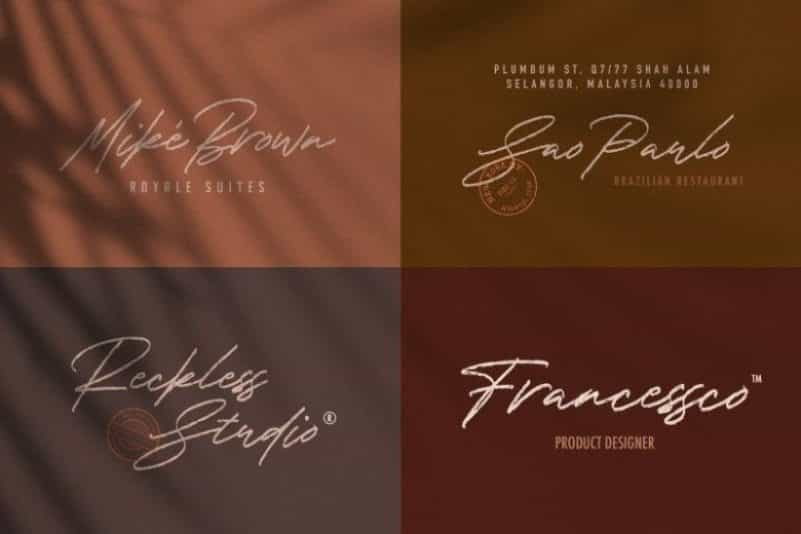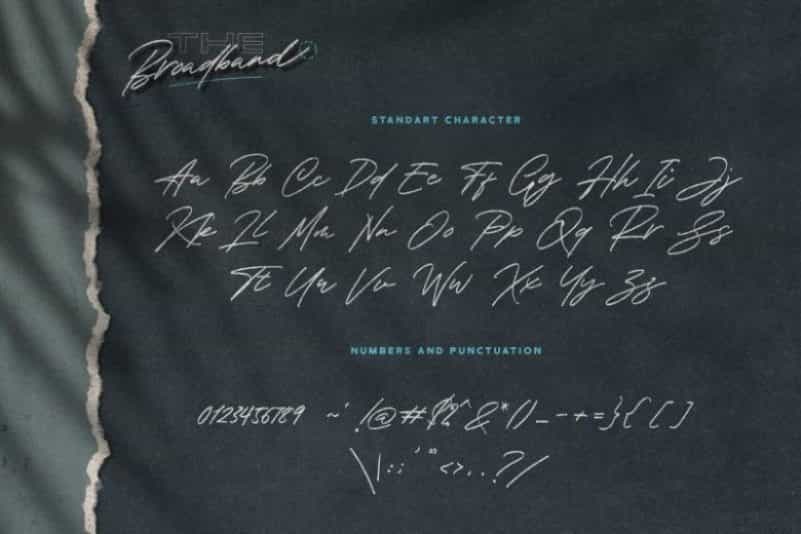
Discover The Broadband Script Font, part of the Commercial Brush collection—a versatile and unique font perfect for adding a personal touch to your projects. Download it for free and enjoy crafting designs with style, from invitations to social media posts. This font is available exclusively for personal use, giving you the freedom to create without limits. Unlock your creativity with The Broadband Script Font today!
It is known as The Broadband Font. It’s a vintage, elegant and handwritten sag font that has its own character. The rapid drying of the strokes and a signature style, The Broadband Script is an ideal choice for branding projects, homeware designs product packaging or just as a stylish text overlay to any background image.